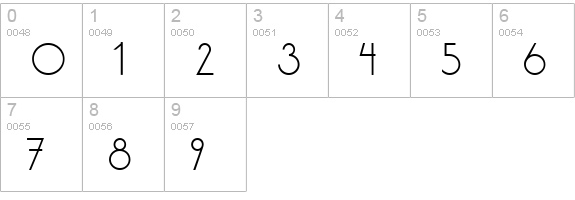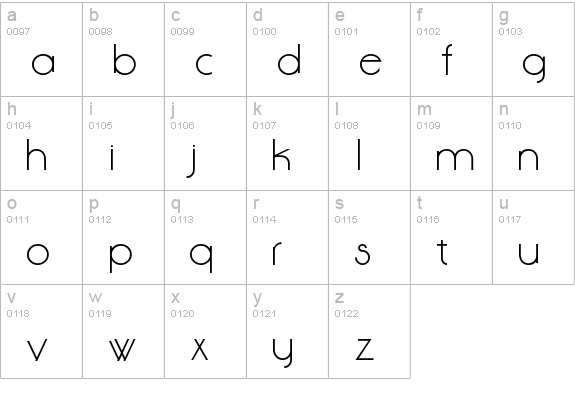
Sonne Font Details
Introducing Sonne, a captivating and versatile font that effortlessly combines elegance with a touch of modernity. With its clean lines and timeless appeal, Sonne is the perfect choice for a wide range of design projects, from branding and packaging to editorial and signage. Designed with meticulous attention to detail, Sonne's balanced proportions and graceful curves create a harmonious and legible typeface that is both visually pleasing and highly readable. Its versatility shines through in both large headlines and small body text, making it suitable for a variety of applications. But what truly sets Sonne apart is its accessibility. This remarkable font is not only visually stunning but also comes with the added benefit of being completely free. That's right, Sonne is freely available to download at FontsMarket.com, making it an ideal option for designers and creatives on a budget, or anyone seeking a high-quality font without breaking the bank. Whether you're a seasoned designer or just starting out, Sonne provides an excellent foundation for your creative projects. Its wide range of weights and styles allows for endless possibilities, whether you're aiming for a classic and sophisticated look or a more contemporary and edgy design. With Sonne, you'll have the freedom to experiment and explore, unleashing your creativity without limitations. So why wait? Experience the beauty and versatility of Sonne today, and discover why it has become a beloved choice for designers around the world. Download it for free at FontsMarket.com and let your imagination run wild with the power of Sonne font.